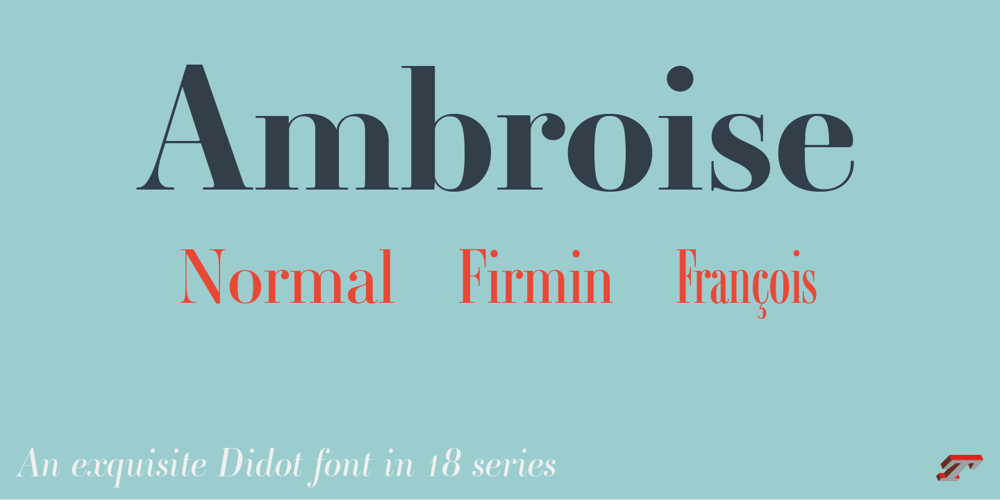
Ambroise Std
Ambroise Std font
Ambroise Std Font Family was designed by Jean François Porchez and published by Typofonderie. Ambroise Std contains 18 styles and family package options. An exquisite Didot font in 18 series Ambroise is a contemporary interpretation of various typefaces belonging to Didot’s late style, conceived circa 1830, including the original forms of g, y, &; and to a lesser extent, k. These unique glyphs are found in Gras Vibert, cut by Michel Vibert. Vibert was the appointed punchcutter of the Didot family during this period. It is the Heavy, whom sources were surest that Jean François Porchez has been used as the basis for the design of the typeface family. In the second half of the 19th century, it was usual to find fat Didots in several widths in the catalogs of French type foundries. These same typefaces continued to be offered until the demise of the big French foundries in the 1960s.Ambroise attempts to reproduce more of what we see printed on paper in the 19th century; a more accurate representation of Didot punches. So, the unbracketed serifs are not truly square straight-line forms but use tiny transitional curves instead. The result on the page appears softer and less straight, particularly in larger sizes.The illustrious Didot family of type founders and printersEvery variation of the typeface carries a name in homage to a member of the illustrious Didot family of type founders and printers. The condensed variant is called Ambroise Firmin. The extra-condensed is called Ambroise François.Ambroise Pro brought back to life: fifteen years in the making!Club des directeurs artistiques, 48e palmarèsBukva:raz 2001